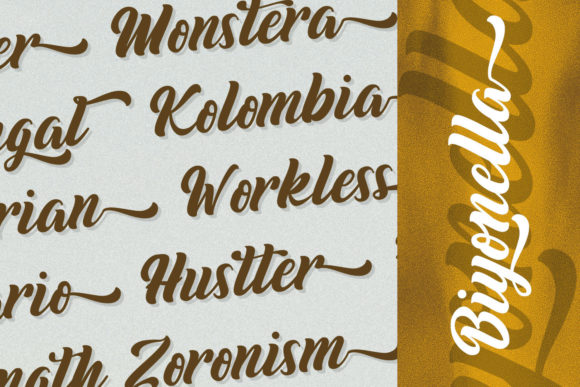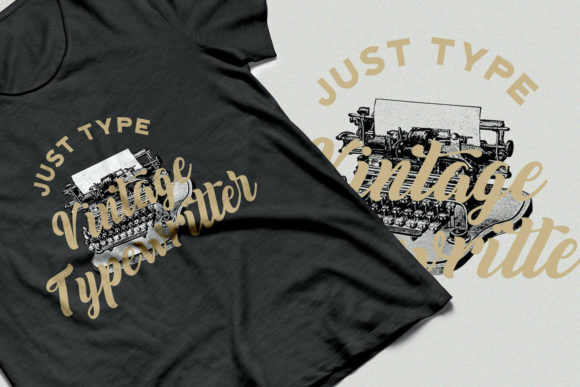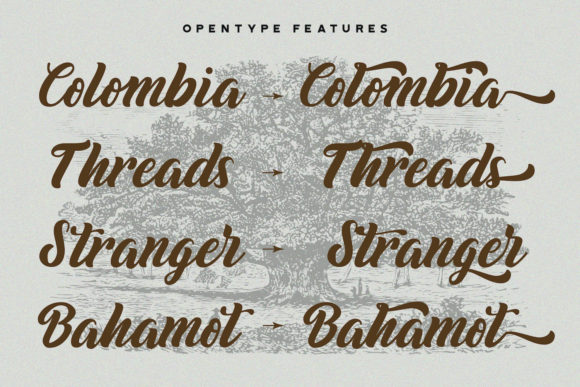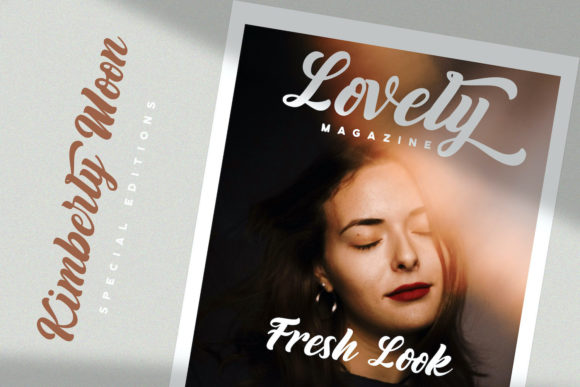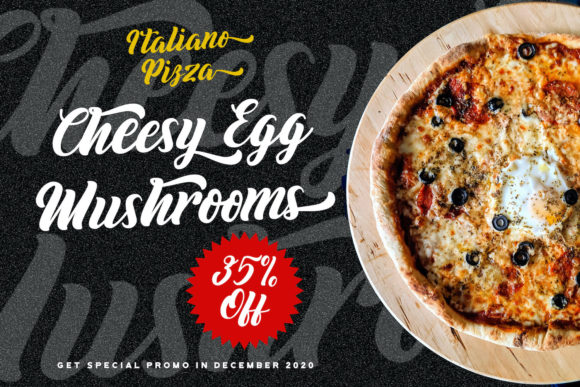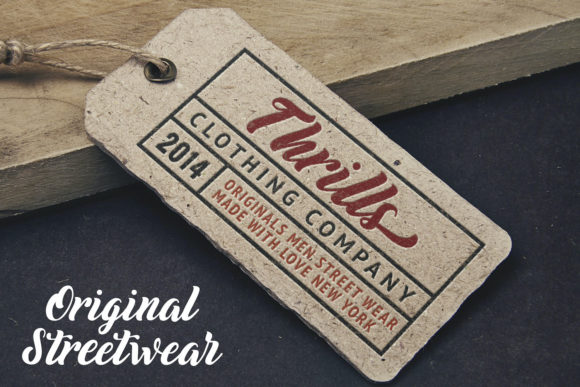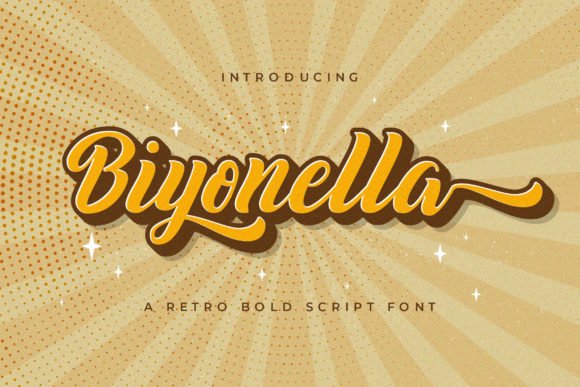
Unlock the Power of Vintage Charm
Have you ever stumbled upon an old, forgotten notebook in your attic, and suddenly, a wave of creativity washes over you? The worn-out pages, the faded ink, and the quirky handwriting all come together to spark an idea that refuses to be ignored. This is the magic of vintage design, and it’s exactly what the Biyonella Font embodies.
| 📌 Product Name | Biyonella Font |
| 👤 Author | StringLabs |
Biyonella Font is a retro, bold script font that exudes a unique vintage style, perfect for adding a touch of nostalgia to your branding. With its curved, rounded lines, this font is sure to bring your creative ideas to life. Whether you’re a designer, artist, or entrepreneur, the Biyonella Font is a valuable tool that can help you stand out from the crowd.
Biyonella Font Key Features
- Unique Characteristics: Biyonella Font features a unique blend of modern and vintage elements, with intricate details and subtle texture, making it perfect for designs that require a touch of sophistication.
Biyonella Font Review
Overall, I think Biyonella Font is an interesting choice for designers looking for a unique, handwritten feel. ✨ It’s clear that the designer put a lot of thought into crafting this font, and it shows in the subtle nuances and flourishes throughout.
Here are a few things that I think work well with Biyonella Font:
- ✨ Unique letterforms: Each letter in Biyonella Font has its own distinct personality, which can add a lot of character to text.
- ✨ Consistent line weight: Despite its handwritten feel, Biyonella Font has a consistent line weight throughout, making it easy to read and use.
- ✨ Versatility: Biyonella Font can be used for a wide range of projects, from logos to packaging to editorial design.
- ⚠️ Limited character set: Biyonella Font only includes a limited character set, which may not be suitable for projects that require a full range of characters.
- ⚠️ Not suitable for body text: While Biyonella Font can be used for headings and titles, it may not be the best choice for body text due to its irregular letter spacing and varying line height.
Overall, I think Biyonella Font is a solid choice for designers looking for a unique, handwritten font. While it may have some limitations, its unique letterforms and versatility make it a great option for the right project.
Biyonella Font Practical Application Guide
The Biyonella font is a versatile and elegant script font that can be used in various design applications. To get the most out of it, follow these steps:
Tips for Getting the Most Out of Biyonella Font
Here are some tips for getting the most out of the Biyonella font:
- Use the font in combination with other fonts to create a visually appealing design.
- Pay attention to the font’s spacing and alignment to ensure a professional look.
The Biyonella font is suitable for a variety of design applications, including:
- Custom graphics and illustrations.
- Presentations and reports.
Alternatives to Biyonella Font for Designers
Great Vibes is a modern, elegant script font suitable for headings, titles, and quotes. It’s ideal for creating a sophisticated and professional look. Great Vibes is a more versatile alternative to Biyonella Font, offering a wider range of styles and customization options.
Alex Brush is a beautiful, handwritten font that works well for headings, titles, and body text. It’s perfect for designers who want to add a touch of elegance and sophistication to their projects. Compared to Biyonella Font, Alex Brush has a more refined and polished look, making it suitable for high-end designs.
Yes, Biyonella Font includes a comprehensive character set covering Latin, Greek, and Cyrillic scripts, as well as various diacritical marks and symbols. This extensive character set supports multilingual typesetting and enables designers to create content in multiple languages.